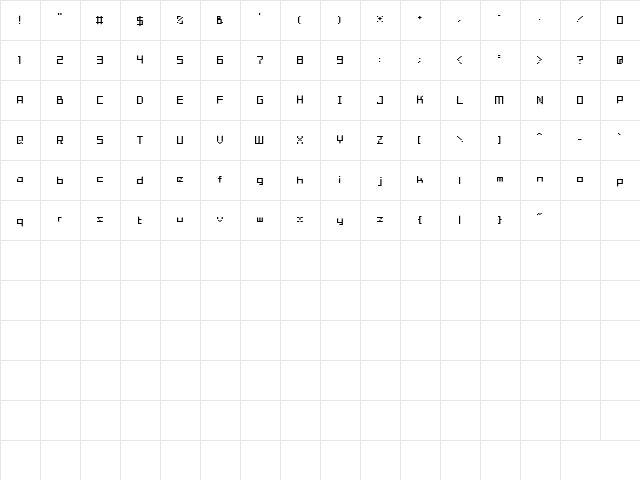
tama mini01 Regular Font Preview
tama mini01 Regular
Design Context for tama mini01 Typeface
tama mini01 is a composed and adaptable typeface that performs quietly and consistently across a wide range of design contexts.